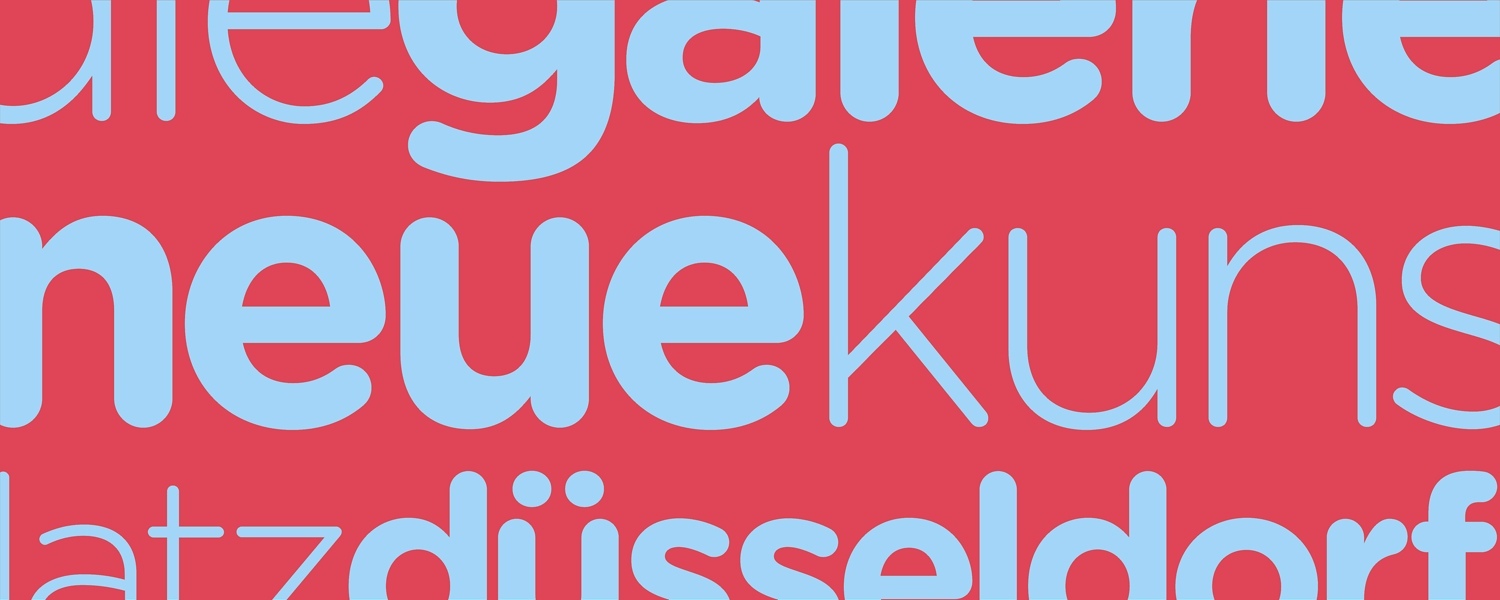
Gotham Rounded Font
Gotham Rounded Font is perfect for friendly brand identities, approachable tech companies, healthcare communications, educational materials, children's products, community organizations, accessible websites, family-oriented businesses, public service announcements, inclusive corporate communications, user-friendly interfaces, and welcoming signage systems.
What makes Gotham Rounded Font exciting is its perfect balance of authority and approachability that transforms the iconic strength of geometric typography into something warm and inviting through softened corners and humanized letterforms. This masterful typeface represents the evolution of modern sans serif design, combining the reliability and professionalism of systematic typography with the friendliness and accessibility that today's audiences demand. The font's rounded terminals and gentle curves create immediate trust and comfort while maintaining the clarity and strength essential for serious professional communication. Its welcoming personality makes it ideal for organizations that need to project competence while remaining approachable and inclusive.
The Gotham Rounded Font family includes thin, light, regular, medium, bold, and black weights, each available with corresponding italic styles. The comprehensive family features condensed variations and extended styles, providing designers with complete typographic flexibility for systematic yet friendly brand applications and accessible information design.
Whether you're developing inclusive brand identities, creating accessible communications, or designing user-friendly interfaces, Gotham Rounded Font Free Download delivers the friendly authority your people-centered projects require. This premium typeface excels in environments where trust-building and accessibility are fundamental to organizational success and community engagement. The font's approachable qualities work magnificently across digital platforms and print applications, making it an indispensable asset for designers serving healthcare, education, and public service sectors. Progressive organizations and inclusive brands choose this font for its ability to communicate professionalism while maintaining warmth that puts diverse audiences at ease. The extensive character set supports multiple languages and includes accessibility-focused features, expanding its versatility for global inclusive applications and multilingual community communications. Professional designers appreciate its systematic approach to friendly design and consistent performance across all weights and applications. When you implement this exceptional typeface in your inclusive communications, you're selecting a typography solution that celebrates both competence and compassion, ensuring your brand resonates with diverse audiences while maintaining the professional credibility essential for success in service-oriented industries and community-focused organizations that prioritize accessibility, inclusion, and human dignity in their visual communication strategies and public engagement efforts.